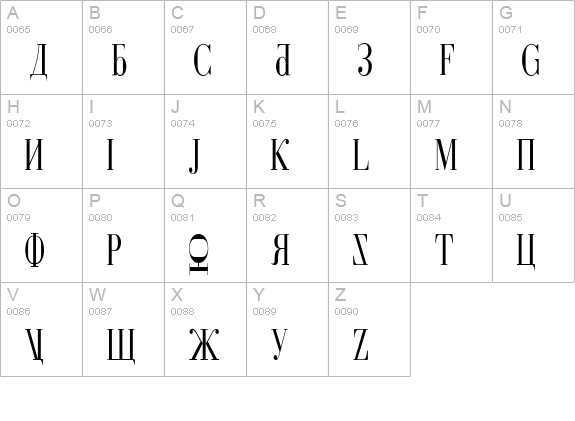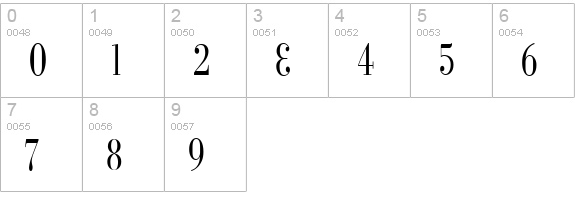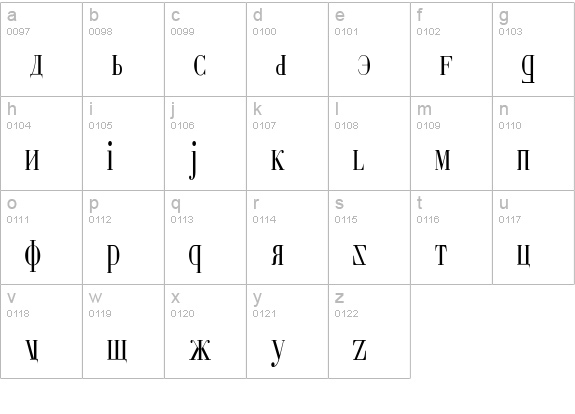
Cyberia Condensed is a distinctive, condensed-width variant in the Cyberia typeface family \xE2\x80\x94 well suited to design and typography projects.
Introducing Cyberia Condensed font, a sleek and modern typeface that combines futuristic elements with a touch of elegance. This condensed version of the Cyberia font family is perfect for projects that require a contemporary and sophisticated look. The clean lines and sharp angles of Cyberia Condensed make it ideal for branding, advertising, and digital designs. This versatile font is free to download at FontsMarket.com, making it accessible to designers and creatives looking to add a stylish edge to their work. With its bold presence and unique character, Cyberia Condensed is sure to make a statement in any project. Elevate your designs with this cutting-edge font today!